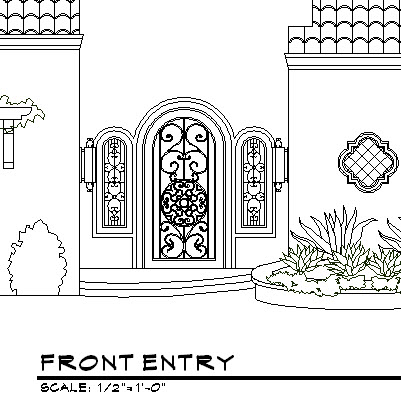
Architectural Fonts
One of the first steps in getting your CAD drawings to have more of a “hand drawn” feel is to use architectural style fonts that have that hand drawn look. ArchBlocks.com has added a new product to help you get more of that architectural feel to your CAD drawings. Architects Fonts is a set of six beautiful architectural hand lettered style truetype fonts that you can purchase individually, or as a combined set.
Check out the previews of 3 of the lettering styles below;
Architectural Fonts
One of the first steps in getting your CAD drawings to have more of a “hand drawn” feel is to use architectural style fonts that have that hand drawn look. ArchBlocks.com has added a new product to help you get more of that architectural feel to your CAD drawings. Architects Fonts is a set of six beautiful architectural […]